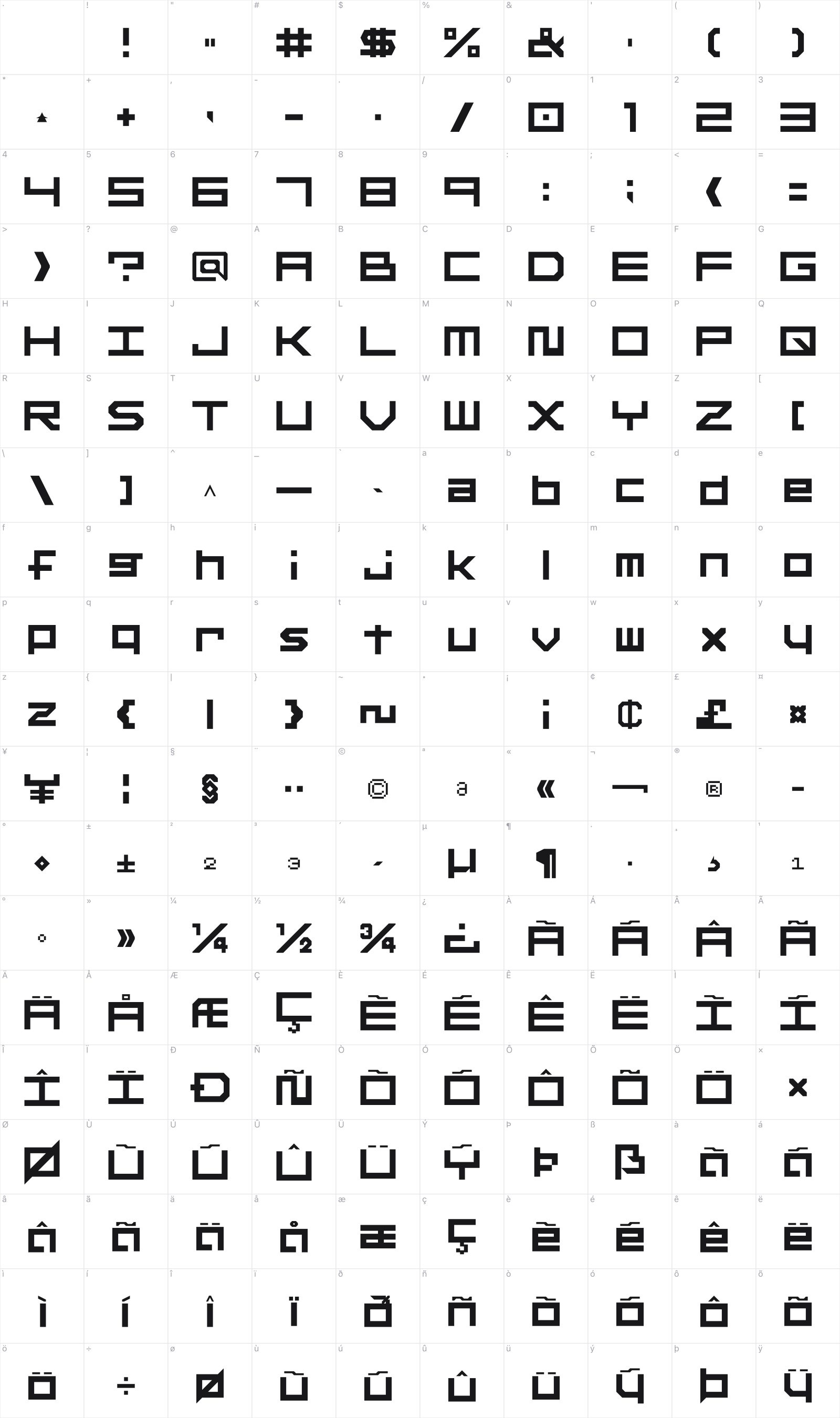
Other F
by Nathan McArthur
Other F is a heavy, blocky bitmap typeface from Nathan McArthur with bold pixel-grid letterforms that feel like they belong on an early computer terminal or retro game screen. The geometric construction keeps everything rigid and deliberate, with no curves or softness to speak of. Best at large sizes for headlines, digital art, and retro-themed projects where raw pixelated weight is the whole point.